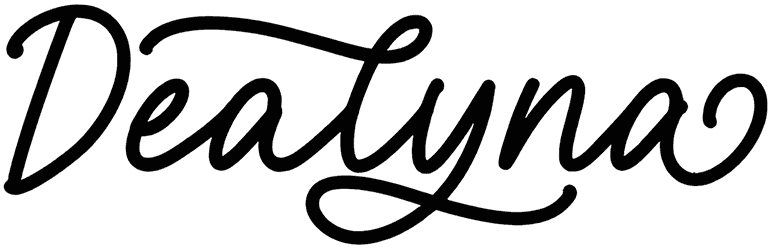
Dealyna Font
If you are looking for a friendly handwriting script font suitable for your projects, you should consider adding Dealyna! The natural, hand-drawn element makes it seem childish, but the characters are fun.
The modern monotone style will allow you to create classy typography even though the letterforms don’t provide a full set of numbers. Dealyna can be utilized for headlines, children’s books, branding, games, comics, weddings, or wherever you wish for chic typography.
Dealyna is a modern monoline script font. With a classy and beautiful style, it brings a classy and chic typeface. Dealyna is best used for weddings, branding, logotype, and quotes.